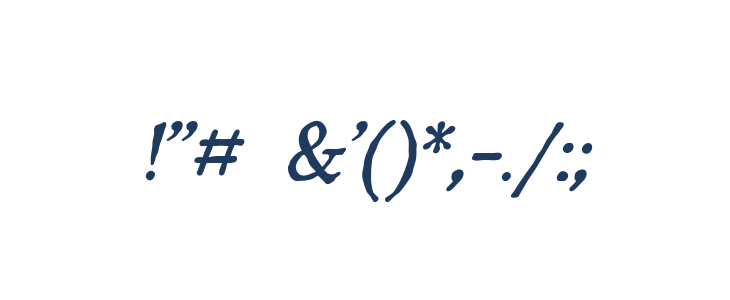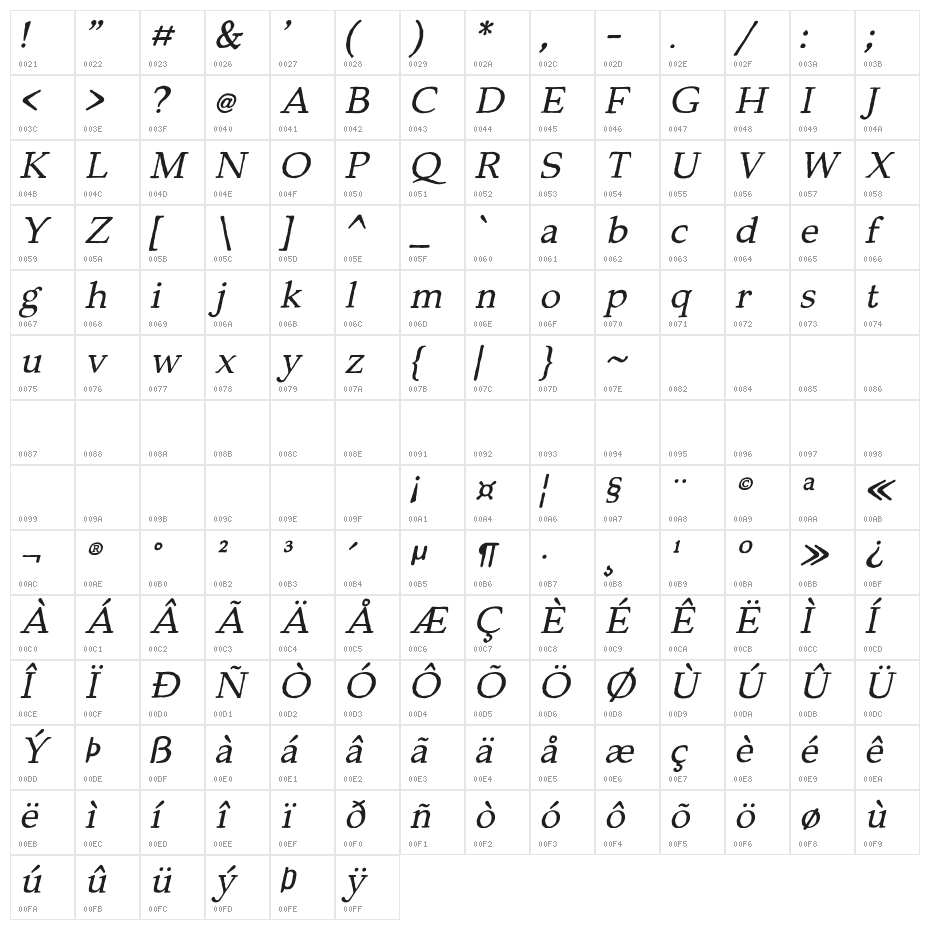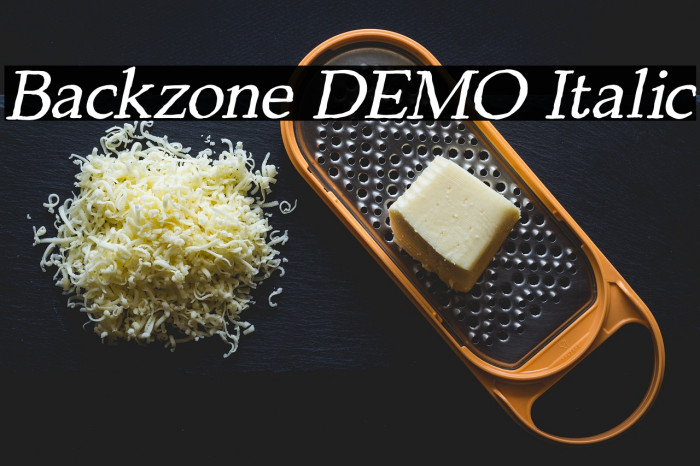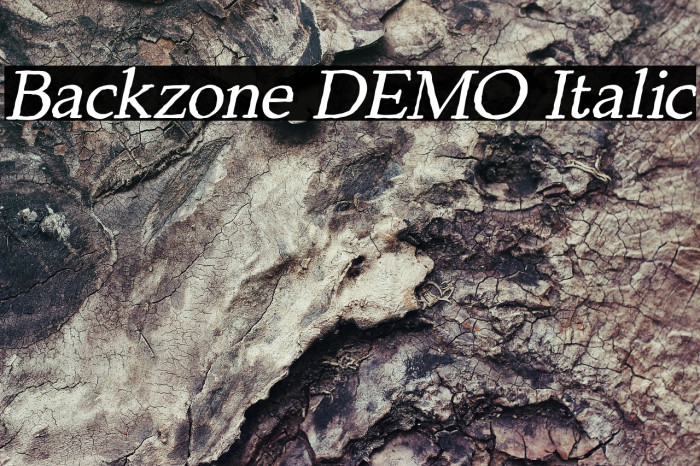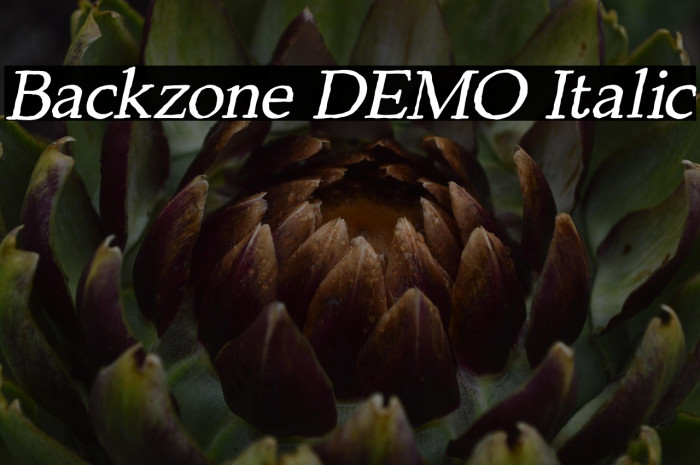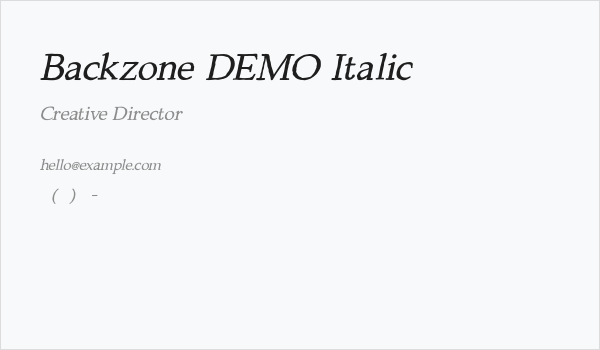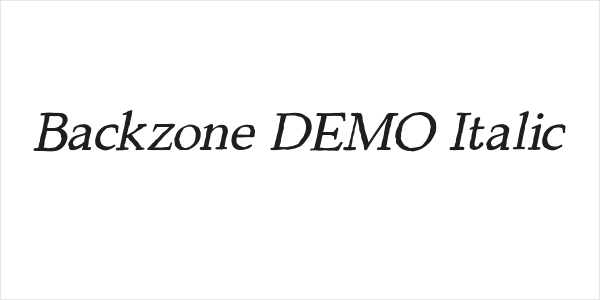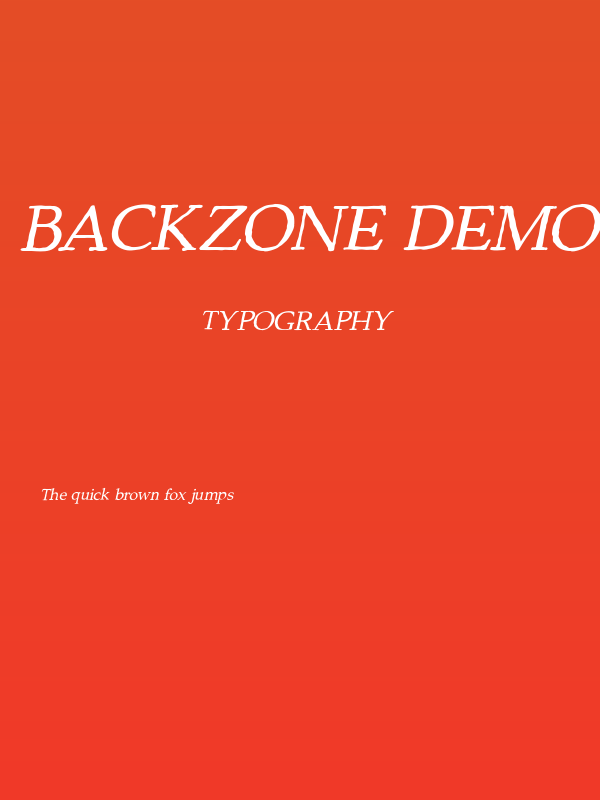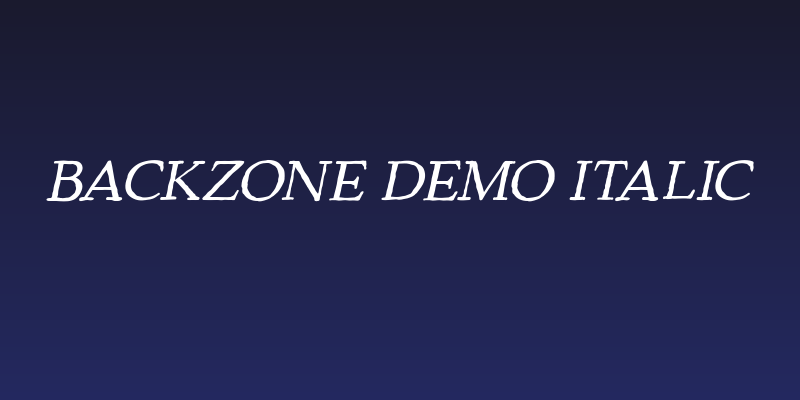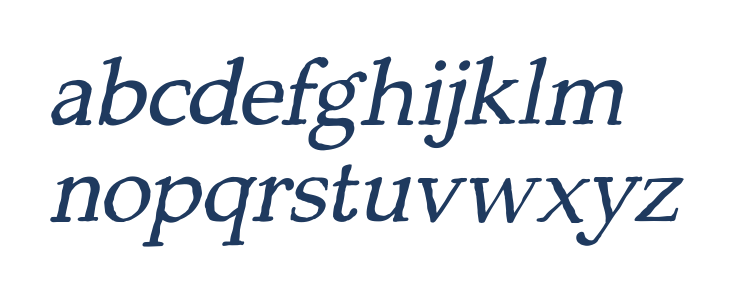
Backzone DEMO Italic Font
Backzone DEMO Italic Description
This font exhibits a classic and elegant italic style, characterized by its smooth and flowing letterforms. The slanted design adds a sense of motion and sophistication, making it ideal for formal and creative applications. The uppercase and lowercase letters maintain a consistent slant, enhancing readability while providing a stylish appearance. The numerals and special characters are well-integrated, ensuring versatility across various uses. The font's overall aesthetic is both timeless and adaptable, suitable for a wide range of design projects.
| Proposed Projects | Ideal for wedding invitations, elegant branding, book covers, and editorial design. |